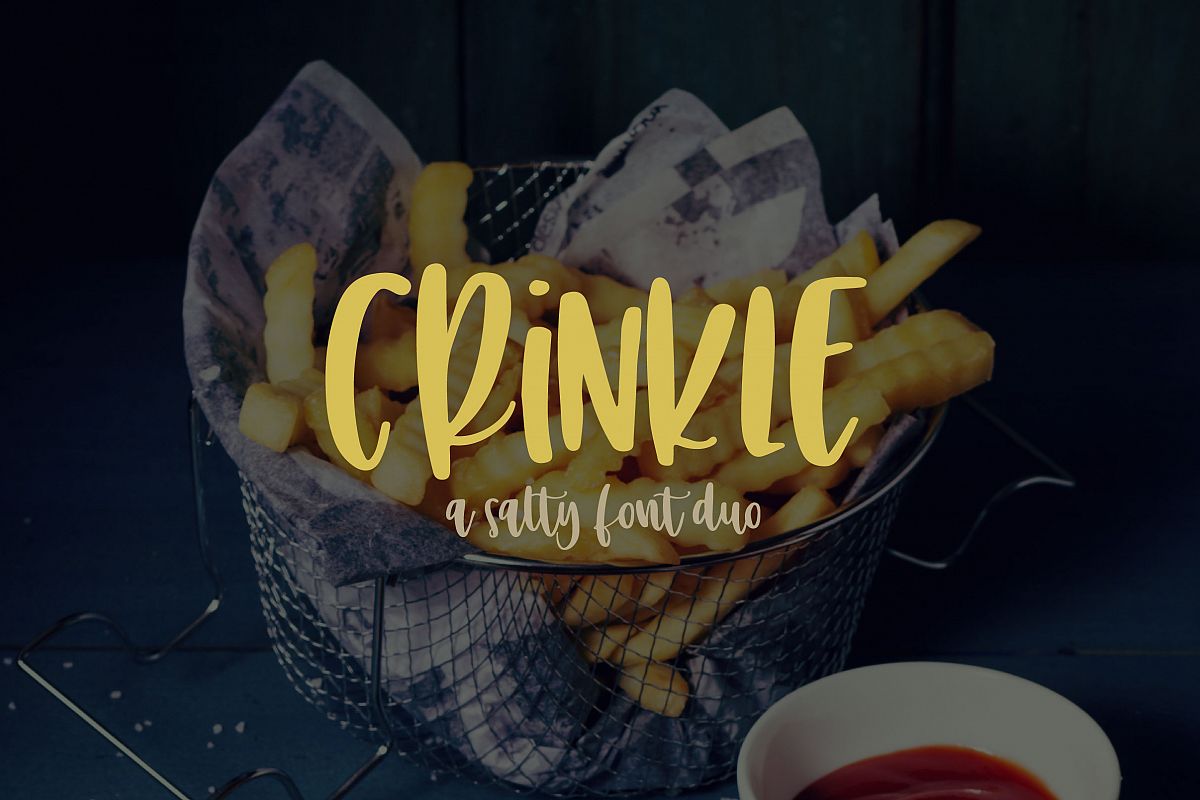
Crinkle
CrinkleRegular
CrinkleScript
Meet Crinkle, a fun mixed case font that gives the feeling of 'jotting' something down real fast! BONUS: lowercase script font to coordinate and work seamlessly with Crinkle!
Crinkle